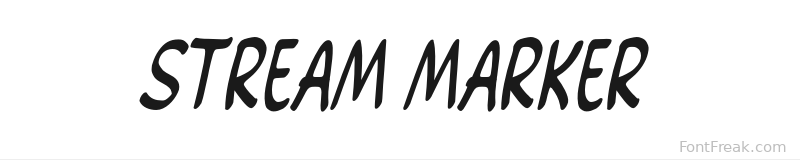
Stream Marker
The Stream Marker font by MJType is a captivating handwritten typeface that embodies an informal yet elegant style. As a decorative font, it features smooth, flowing lines that create a sense of movement, reminiscent of brush strokes. The stroke weight varies throughout the characters, allowing for a dynamic visual appeal that enhances its artistic charm. The letters are well-spaced, ensuring readability while maintaining an organic feel that invites engagement.
Ideal for a variety of creative projects, Stream Marker shines in settings such as wedding invitations, where its graceful flair can add a personal touch. It also works wonderfully for restaurant menus, providing a warm and welcoming atmosphere that complements culinary offerings. Additionally, this font is perfect for social media graphics, giving content creators an edge in capturing attention with its unique style. Graphic designers will find Stream Marker particularly useful for branding materials, as its distinctive character can help establish a memorable identity for small businesses.
The target audience for this font includes graphic designers, small business owners, and content creators who seek to elevate their projects with an artistic yet readable typeface. Stream Marker offers a blend of creativity and functionality, making it an excellent choice for those looking to make a statement.
What truly sets the Stream Marker font apart is its ability to convey personality while remaining versatile. Its free availability allows for easy access, enabling users to experiment with this unique typeface without financial constraints. For anyone in search of a distinctive font that can enhance their creative endeavors, the Stream Marker font free download is a valuable resource that should not be overlooked.